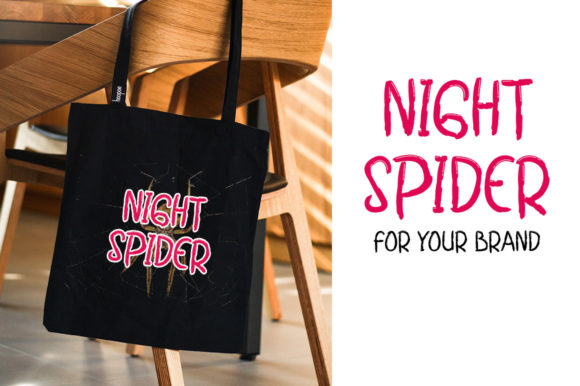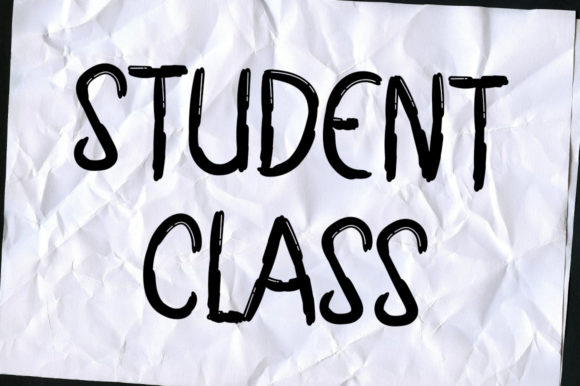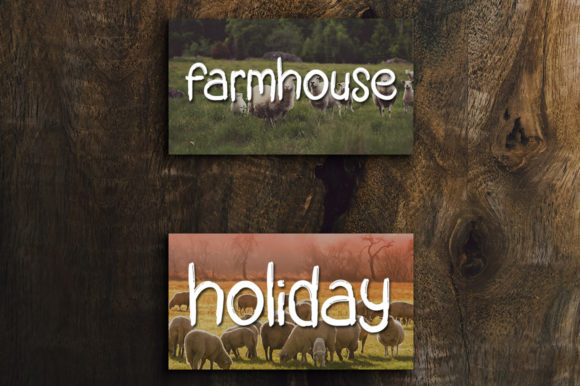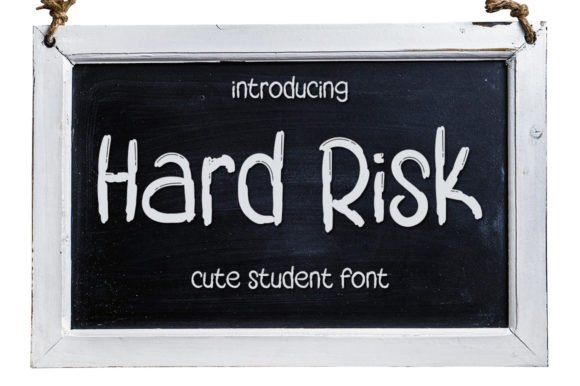
Introduction to Hard Risk Font
Hard Risk is a cool, brushed display font.
It is suitable for book texts, documentation, business reports, business correspondence, magazines, newspapers, posters, advertisements, multimedia, and corporate design .
Why Choose Hard Risk Font?